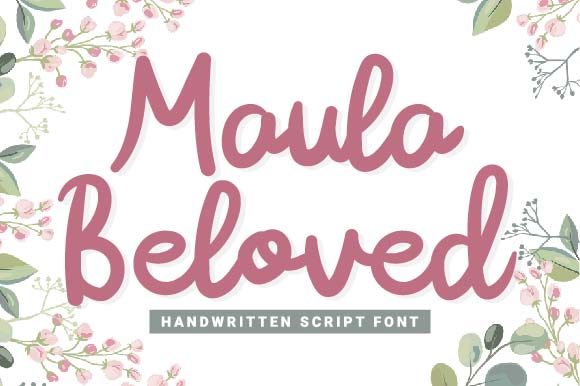
**Embrace the Art of Handcrafted Elegance with Maula Beloved**
Step into a realm of exquisite beauty where words dance with a graceful fluidity, thanks to the mesmerizing Maula Beloved font. This handcrafted script, lovingly brushed with a touch of artistry, captivates with its enchanting curves and effortless flow.
Unleash your creativity and witness the transformation of ordinary words into captivating masterpieces. Whether you're penning heartfelt letters, crafting captivating invitations, or designing breathtaking logos, Maula Beloved will elevate your creations to new heights.
**Immerse Yourself in a Symphony of Style**
Maula Beloved's versatility knows no bounds, making it an indispensable addition to your typographic arsenal. Its playful nature adds a touch of whimsy to children's stories, while its elegant demeanor brings sophistication to corporate presentations. The possibilities are endless, limited only by your imagination.
Experience the joy of effortless legibility, as Maula Beloved's carefully crafted characters ensure clarity and readability. Its flowing lines guide the eye through your text, creating an immersive and engaging reading experience.
**Indulge in the Beauty of Imperfection**
Embrace the charming imperfections that make Maula Beloved truly unique. Each stroke bears the subtle nuances of a human touch, adding a layer of authenticity to your designs. Let the subtle variations in thickness and pressure evoke a sense of warmth and intimacy in every letter you write.
**Ignite Your Inner Artist**
With Maula Beloved at your disposal, you'll discover a wellspring of inspiration. Its expressive nature invites you to experiment, to dance beyond the confines of conventional typefaces. Unleash your inner artist and let your creativity soar.
Join the countless designers, writers, and creatives who have fallen in love with the allure of Maula Beloved. Let its graceful strokes become a testament to your impeccable taste and unwavering commitment to excellence.